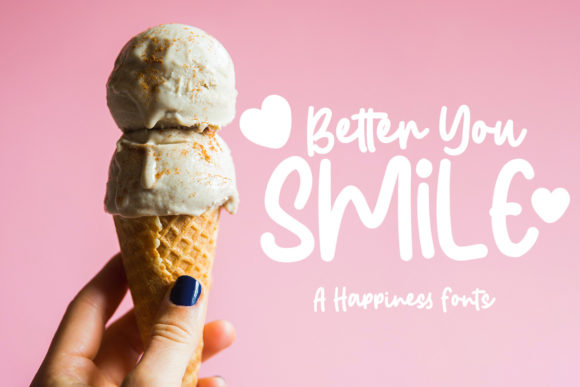
Discover the beauty of Better You Smile, a handwritten font family that radiates effortless charm. This casual script font, crafted by the talented Eifets, exudes warmth and approachability, making it the perfect choice for designers seeking a relaxed and inviting aesthetic. Whether you're creating logos, branding, or invitations, Better You Smile adds a personal touch that captivates audiences.
Unleash your creativity with Better You Smile's versatility. Its informal style seamlessly blends with modern design trends, making it a go-to font for websites, social media graphics, and marketing materials. With its effortless flow and easy-to-read characters, Better You Smile ensures your messages shine, leaving a lasting impression on your audience.
Immerse yourself in the world of Better You Smile and let its casual vibe elevate your designs. Whether you're a seasoned designer or just starting your creative journey, this font family is designed to make your projects effortless and enjoyable. Download Better You Smile today and embrace the joy of handwritten elegance, creating designs that resonate with warmth and charm.
With Better You Smile, you'll discover a font that reflects your unique style. Its casual strokes and informal charm create a personal connection with your audience, inviting them into your creative vision. Experience the difference that Better You Smile brings to your designs, transforming them into captivating expressions of your creativity.
Better You Smile is more than just a font; it's an invitation to explore the world of handwritten beauty. Its effortless flow and casual vibe ignite your imagination, allowing you to create designs that captivate and inspire. Download Better You Smile today and embark on a creative journey that will leave your audience smiling.